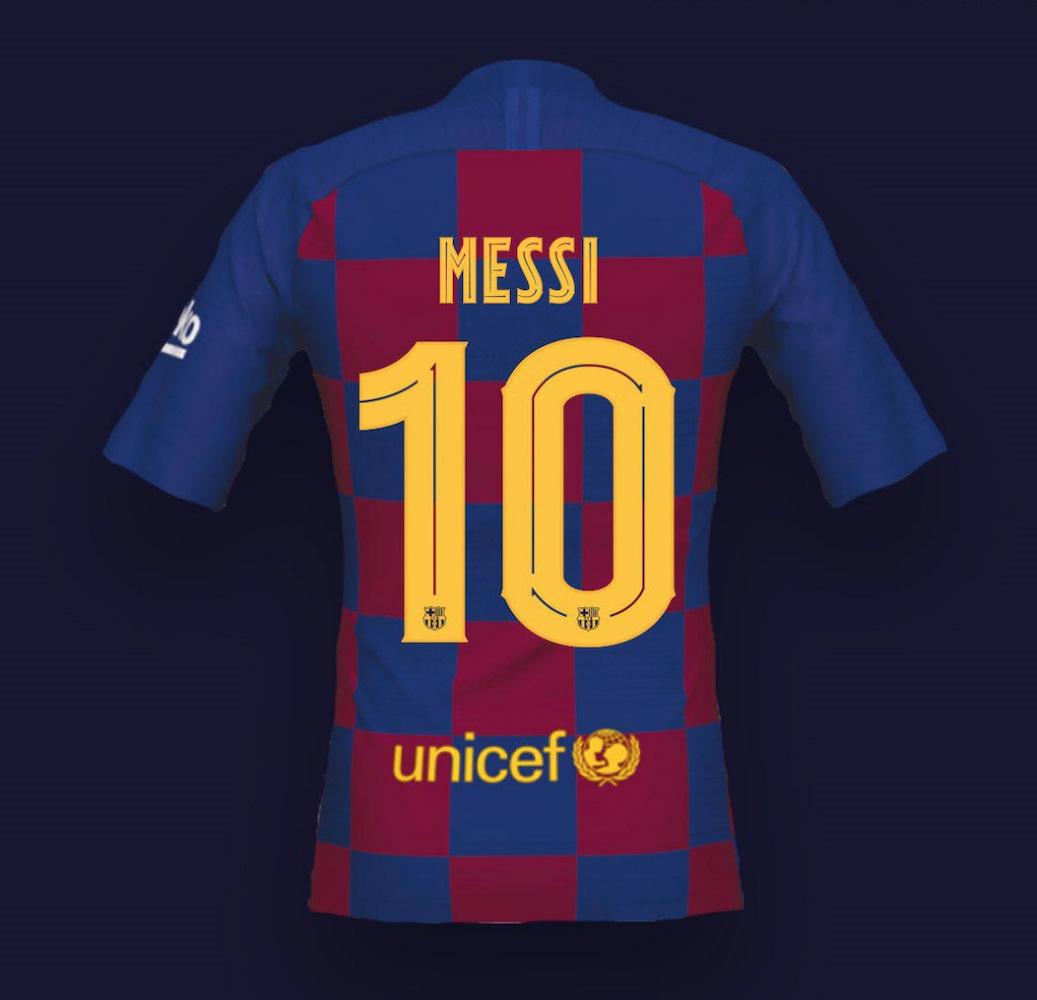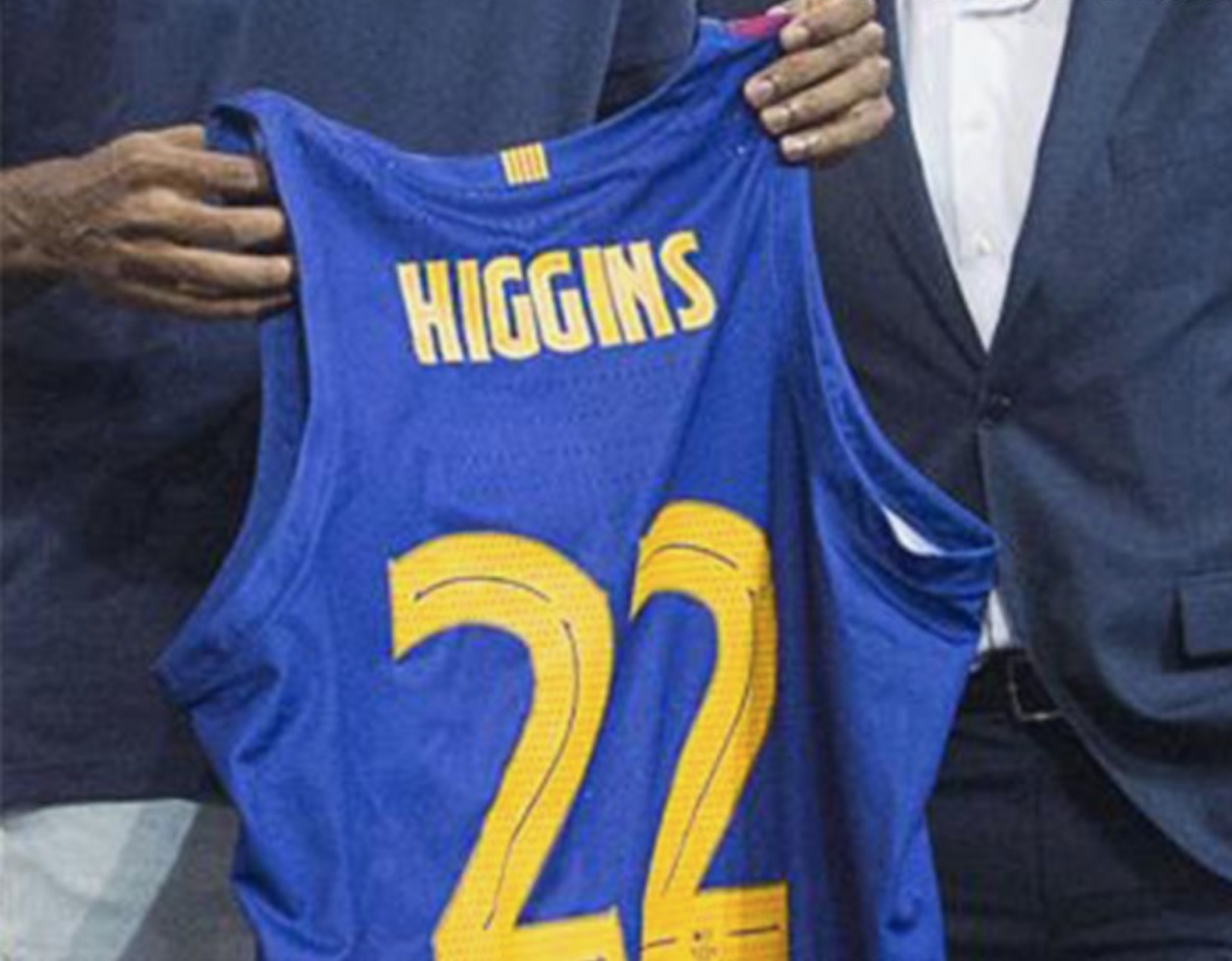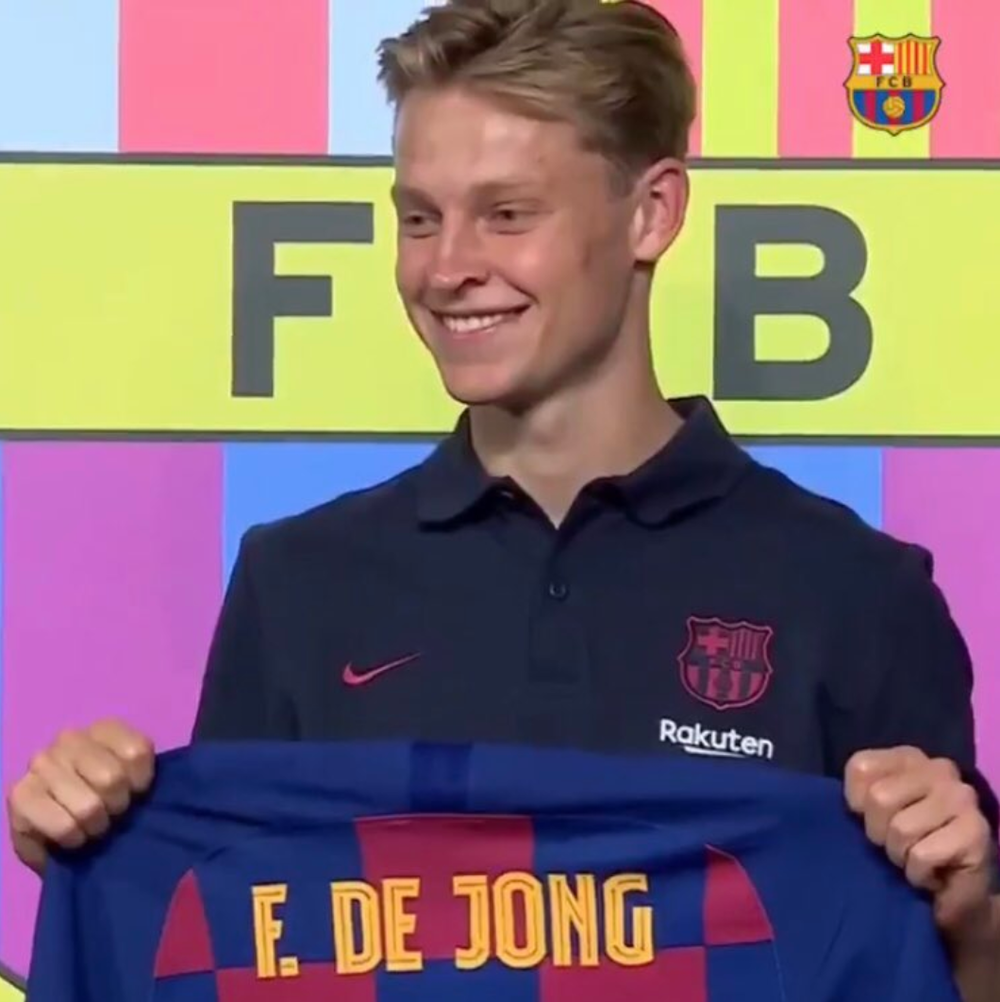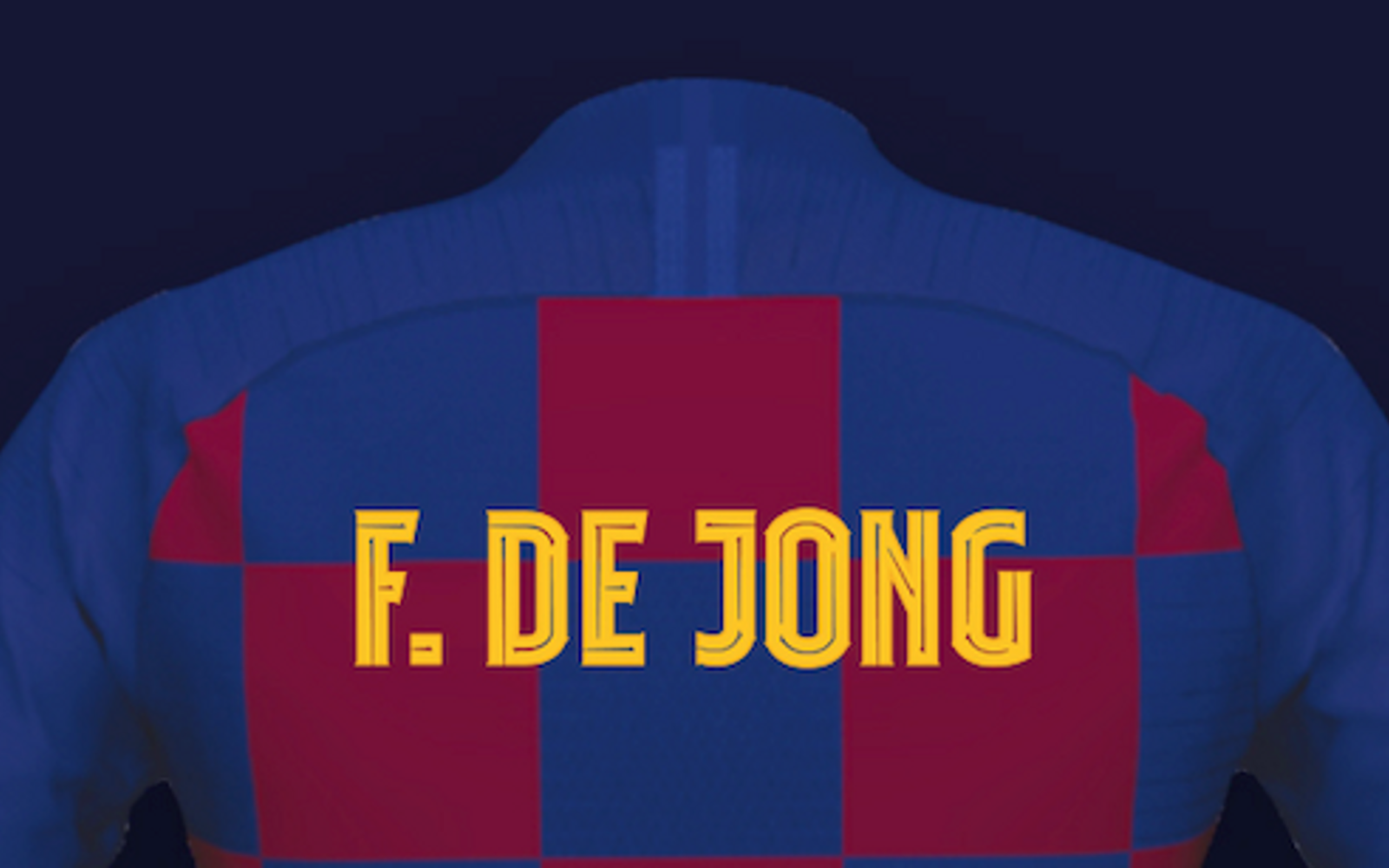
FC Barcelona unveils new 2019/2020 font Previewed during Frenkie de Jong presentation
The new font for FC Barcelona for the 2019/2020 season was unveiled during the presentation ceremony of Frenkie de Jong. For two years, the RFEF - Spanish Football Federation - has chosen to adopt the Premier League model, which provides for the use of only one font for all teams.
If the Blaugrana team has used the La Liga character in Champions League matches in recent years, the names of Messi, Suarez, Pique and teammates will be written in the Barcelona Play font next season. The new stylistic choice will, in fact, be applied for European competitions, for friendly matches and for a possible Rey del Cup final, as well as from other professional teams in society such as basketball, handball, field hockey, and futsal.
It is the first time that Barça has designed a custom font, not by adopting the official ones created by Nike. The inspiration comes from the modernist artistic currents typical of the Catalan city, the visual effect on the jersey is that of strong decorativeness, also thanks to the use of yellow, a classic for FC Barcelona jerseys that will also characterize the design of the new Away jersey, presented in the last hours.
The figures and letters are finished with a thin line in the center, while the team's crest is inserted only in the lower part of the numbers.
This is a choice of strong personality that of Barcelona, the new font will also be used for advertising and communication campaigns, further strengthening the identity of the club.